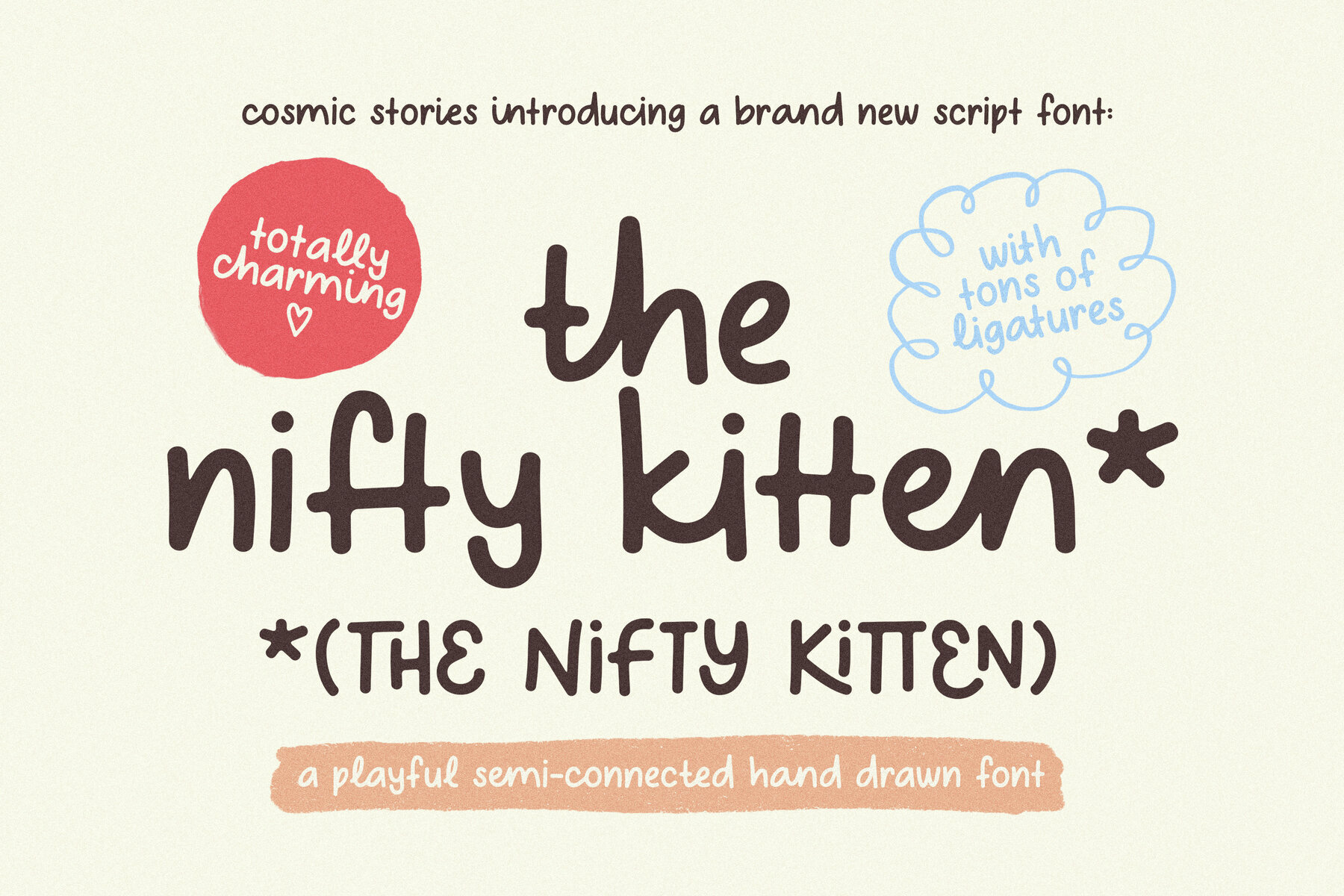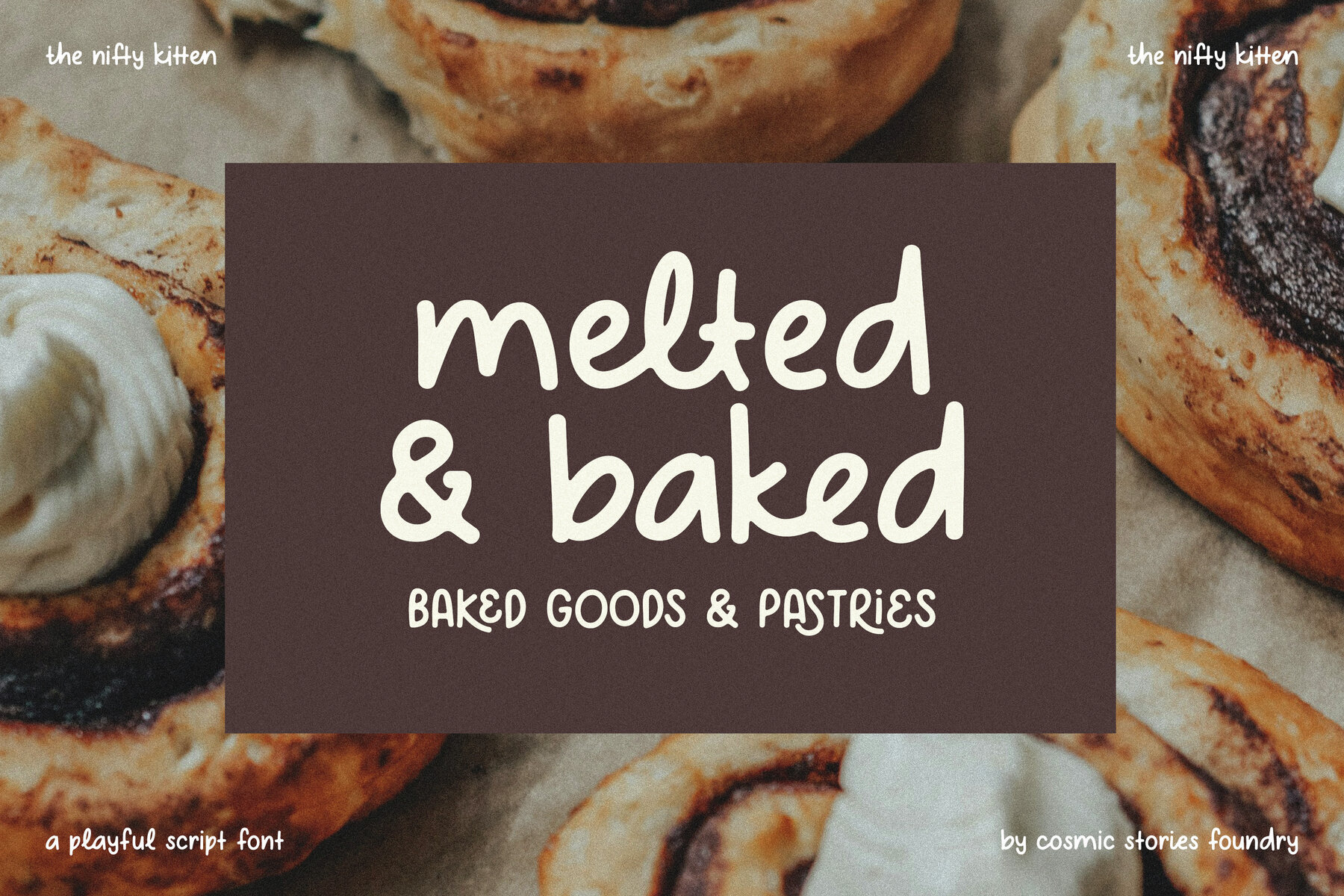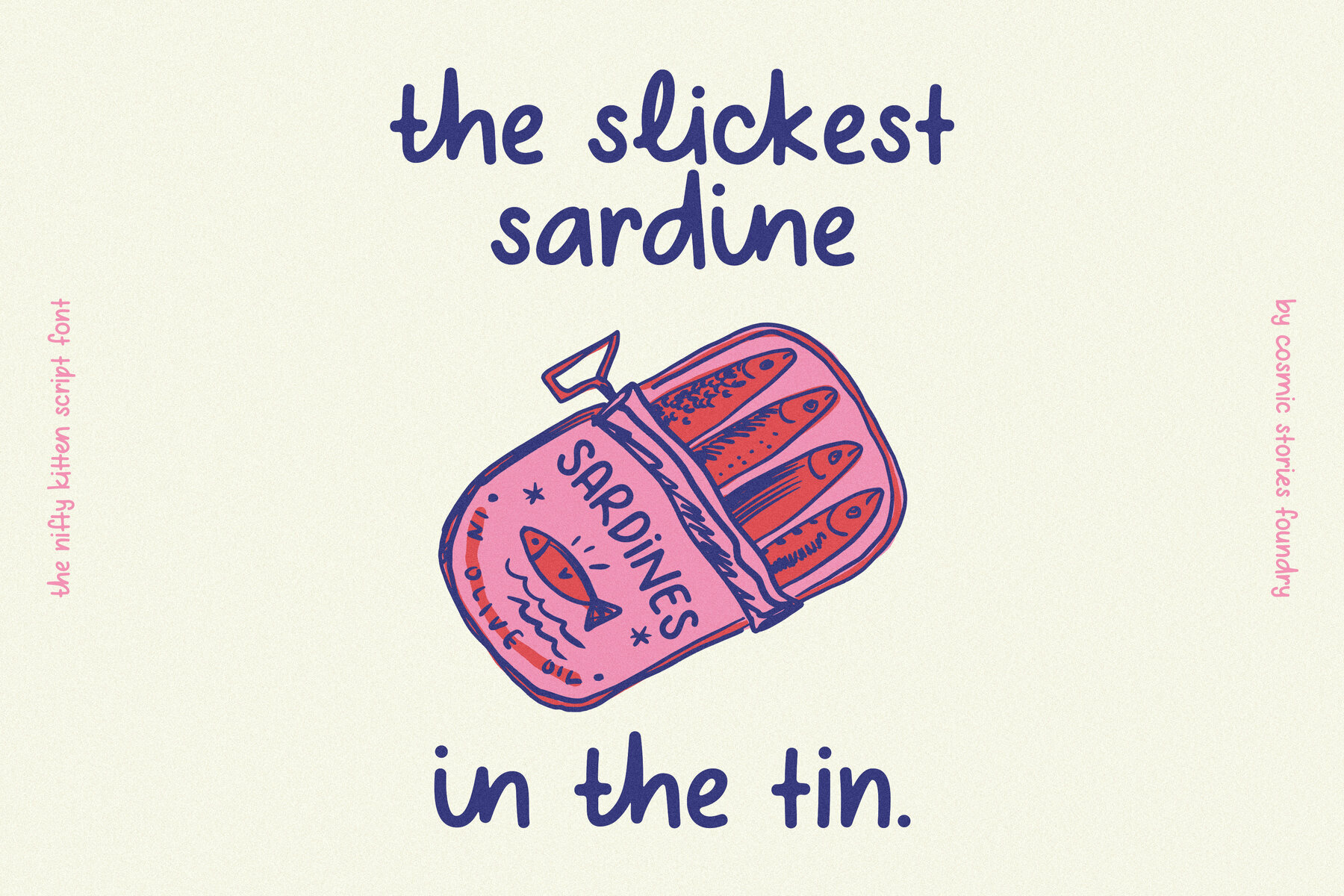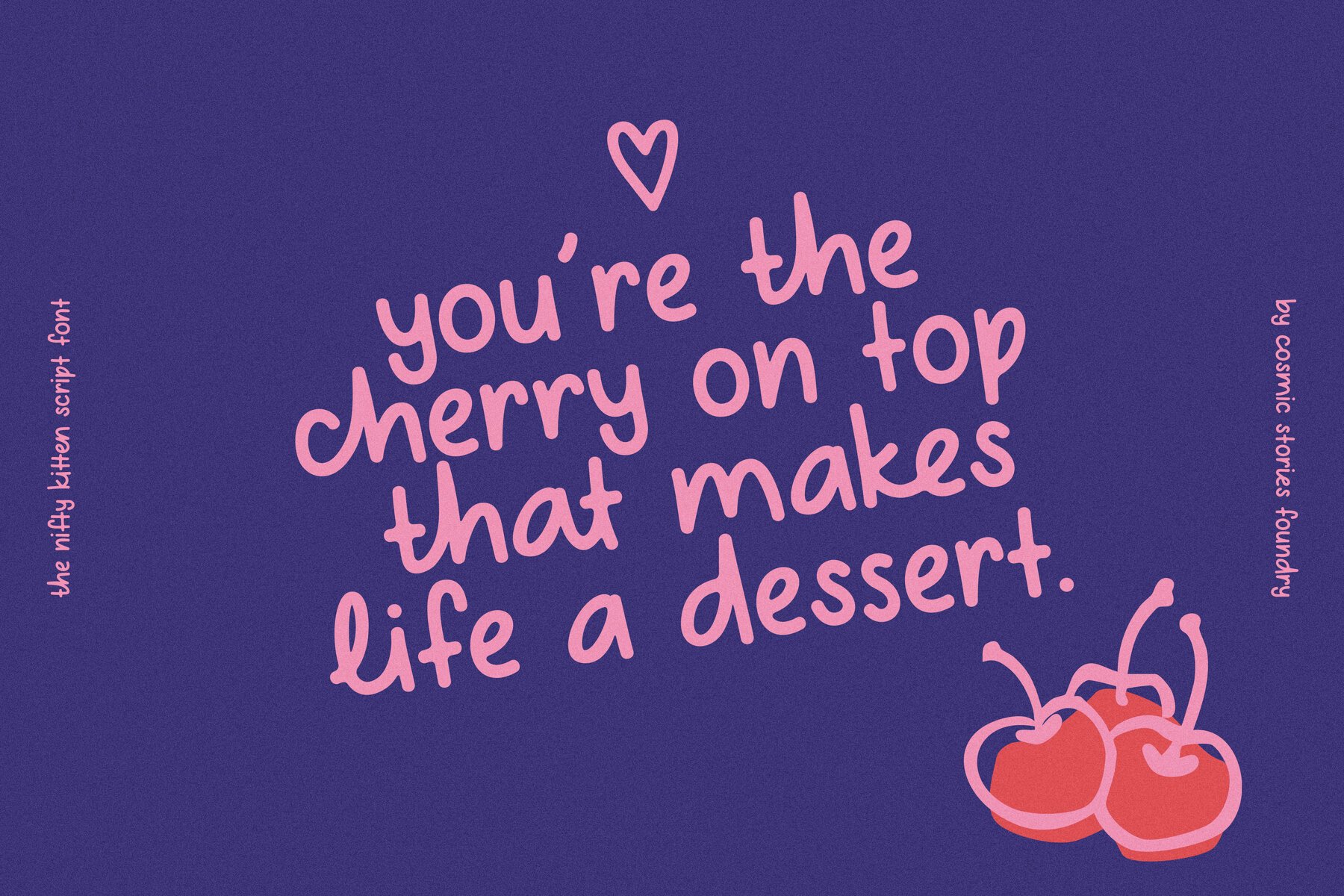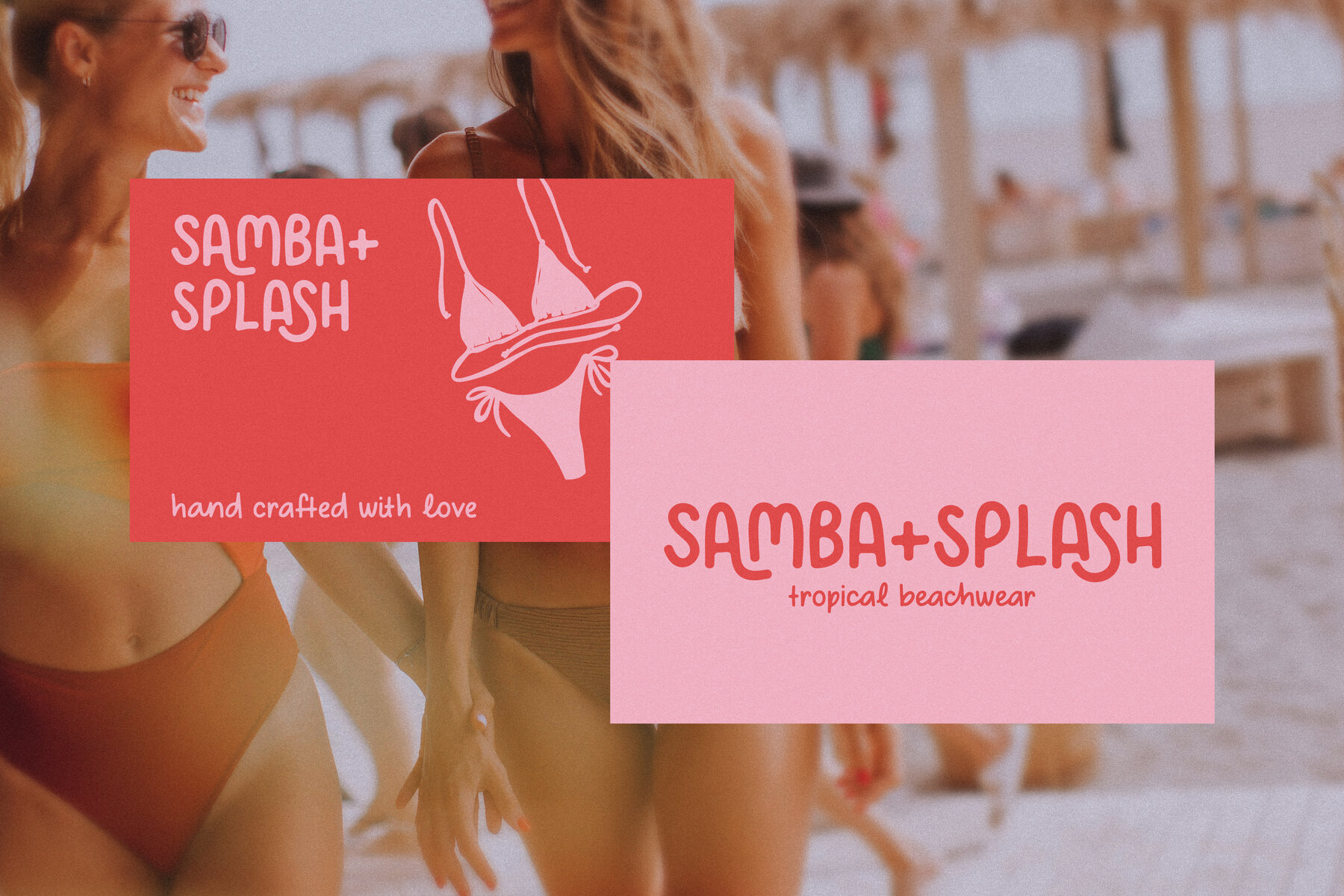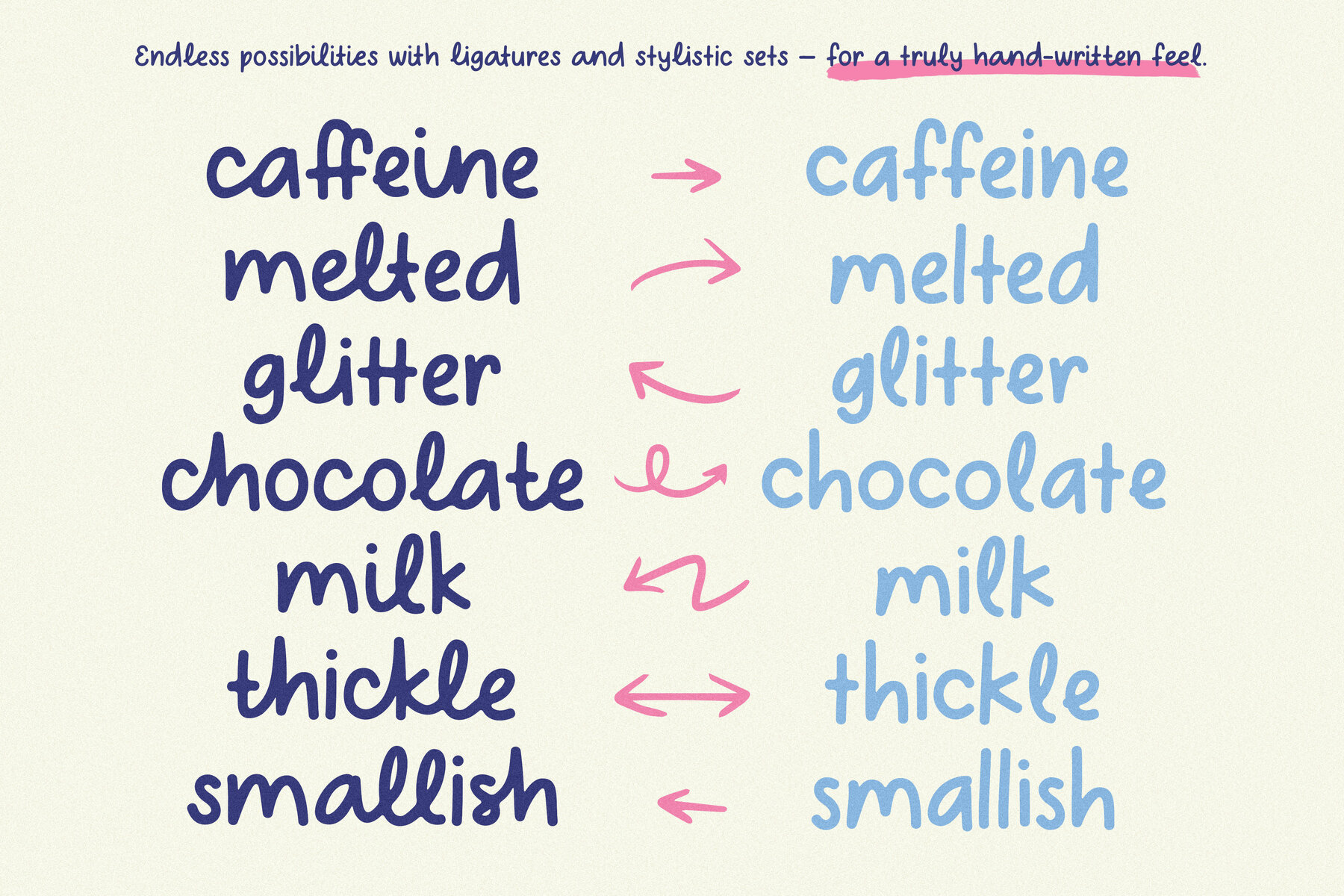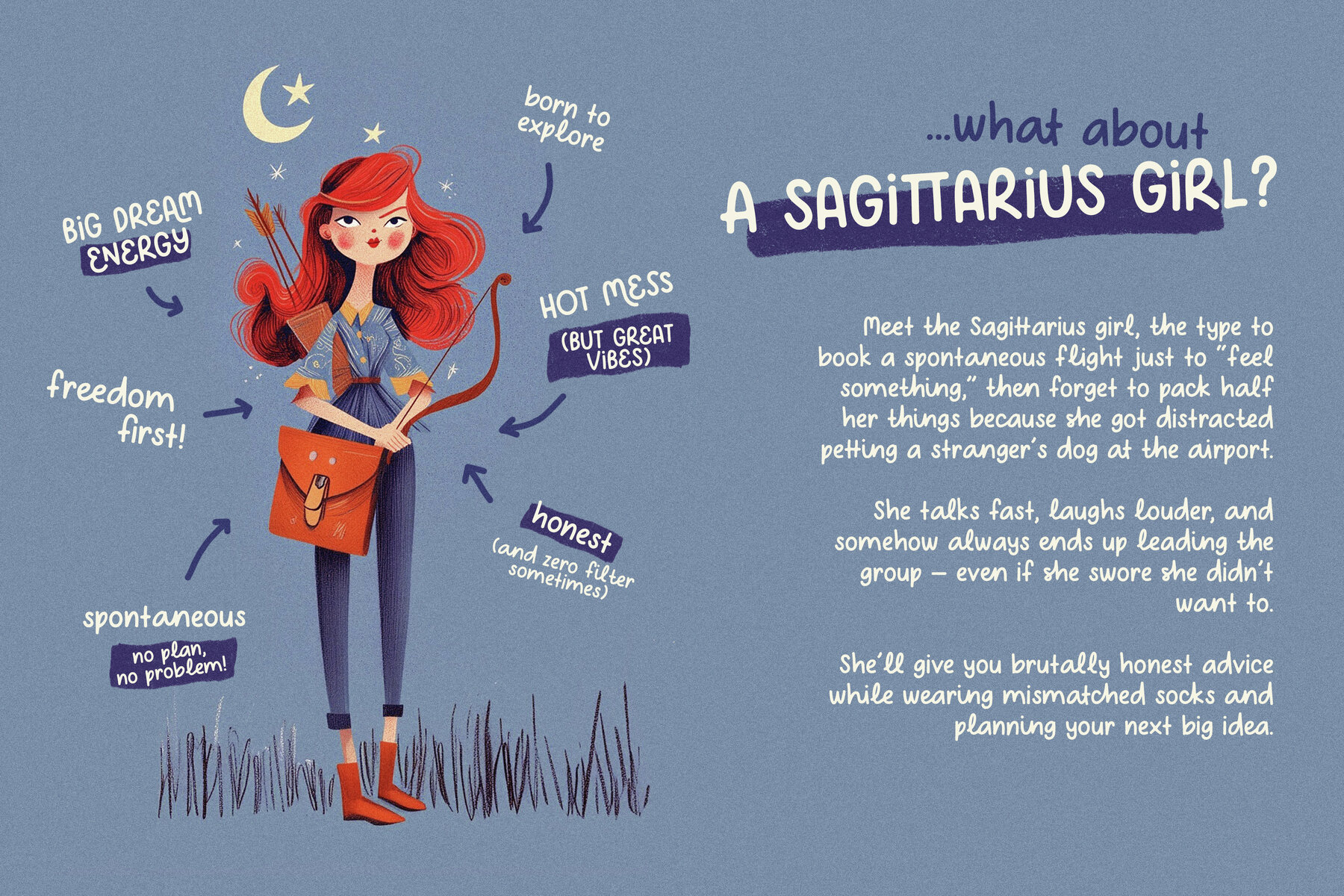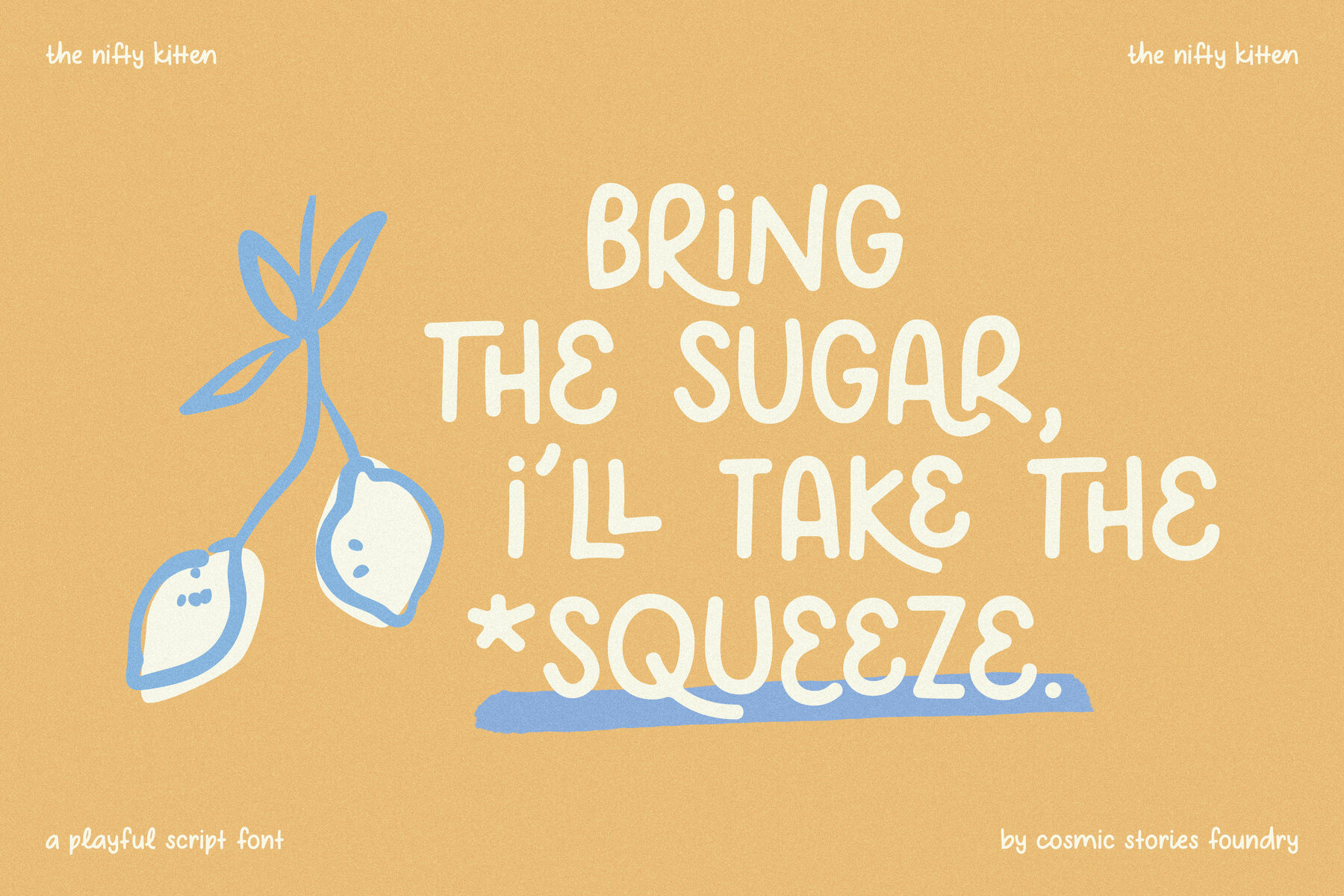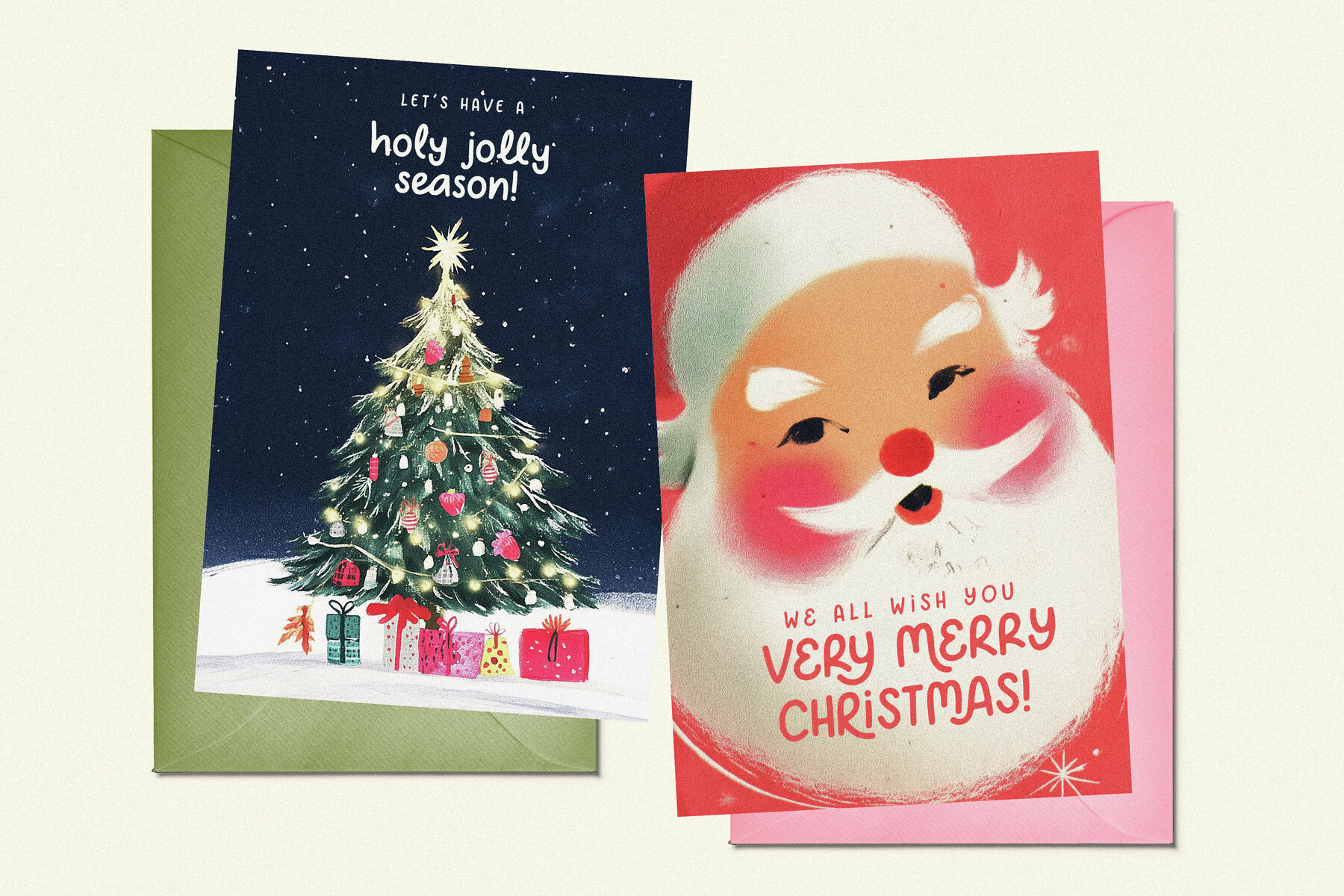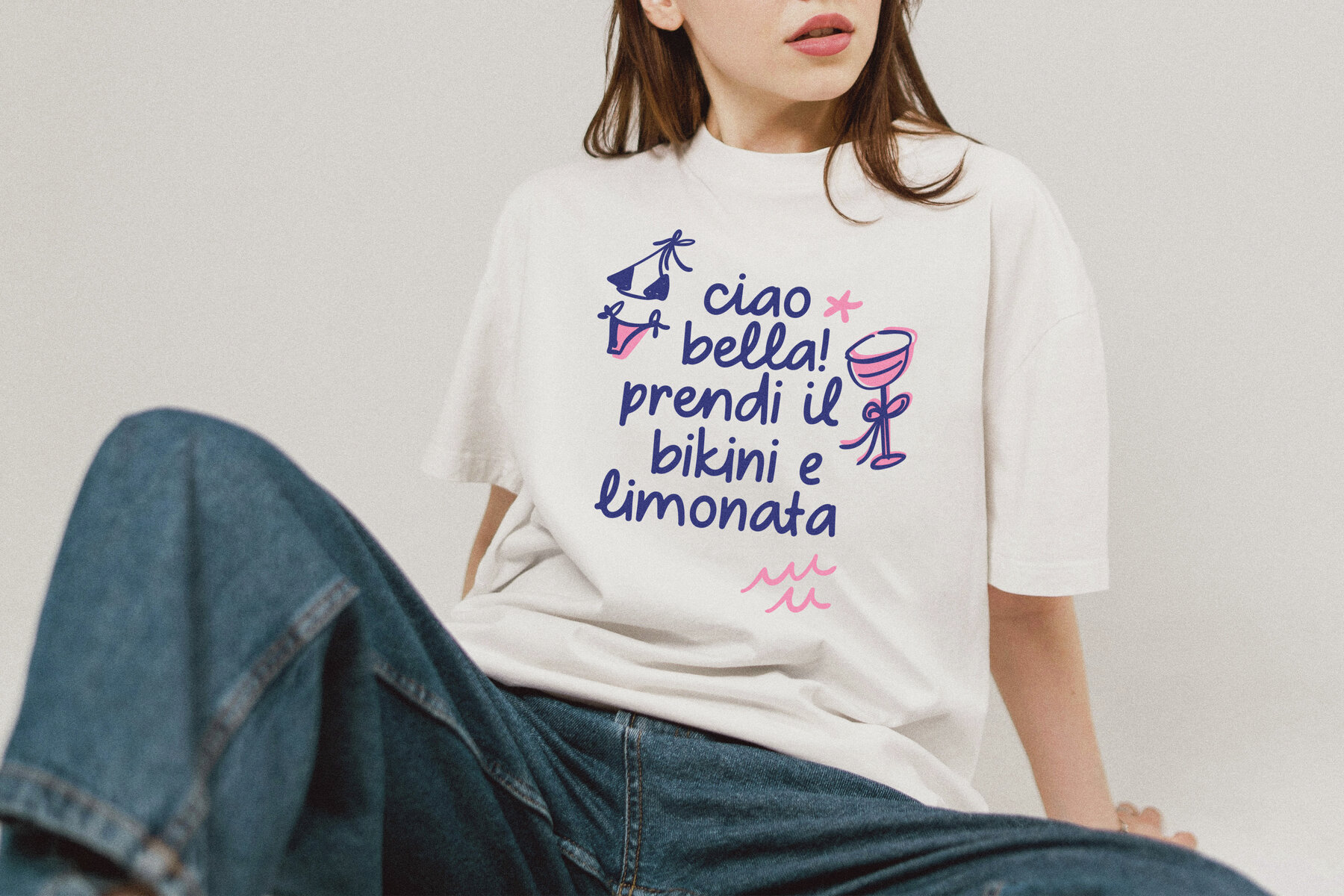
The Nifty Kitten Font
The Nifty Kitten Regular
The Nifty Kitten Script font is a bold, handwritten typeface brimming with personality. Its imperfect, handcrafted style is ideal for brands aiming to infuse a unique, artisanal touch into their designs. Capitalizing on its extensive OpenType features, Nifty Kitten Script offers a vast array of character combinations and ligatures. Each letter boasts at least two distinct versions, enabling you to infuse an authentic handmade feel into every word. The OpenType features ensure that identical sequential letters automatically alternate, enhancing the natural and distinctive appearance of your creations. This font is perfect for designing bold logos, posters, and eye-catching quotes, imparting a relaxed, youthful vibe. With multilingual support, it is designed to cater to global audiences.Nifty Kitten Script: Fresh Handwritten Charm